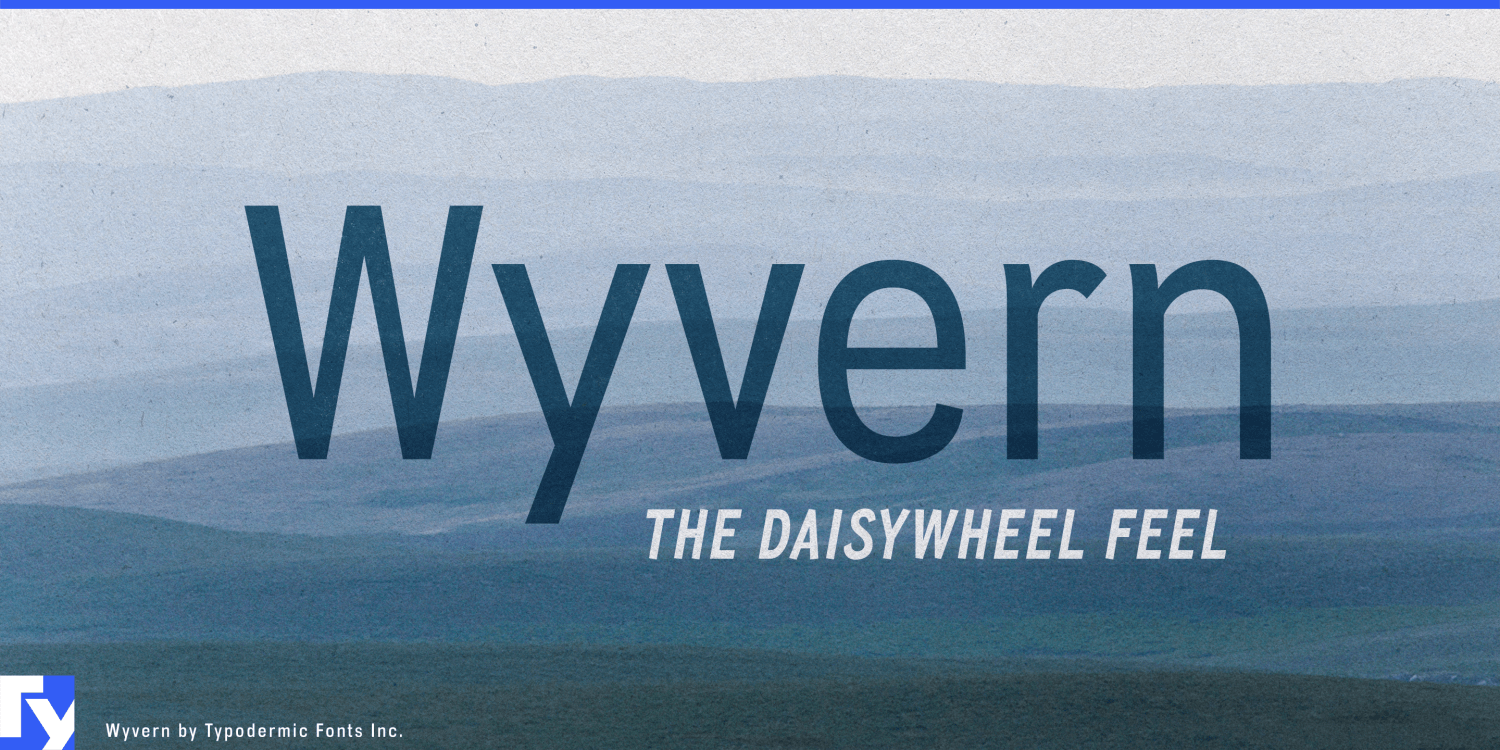
Unleash the power of Wyvern—a sans-serif typeface that doesn’t just communicate, it commands. Born from the legacy of vintage typewriters and daisy wheel printers, Wyvern soars above the competition with a perfect blend of nostalgia and cutting-edge…